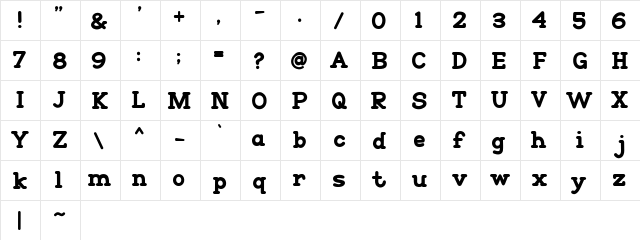
Go Peanut Regular Font Preview
Go Peanut Regular
Go Peanut Regular Font Details
| Foundry | Polah |
| Designer | Polah |
Design Context for Go Peanut Typeface
Go Peanut offers clean, dependable letterforms without strong stylistic allegiance, making it a practical choice for designers who need flexibility.